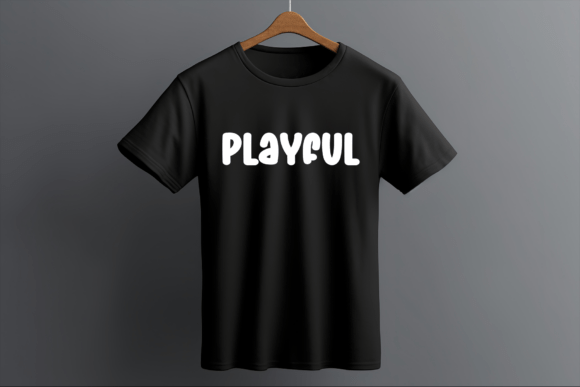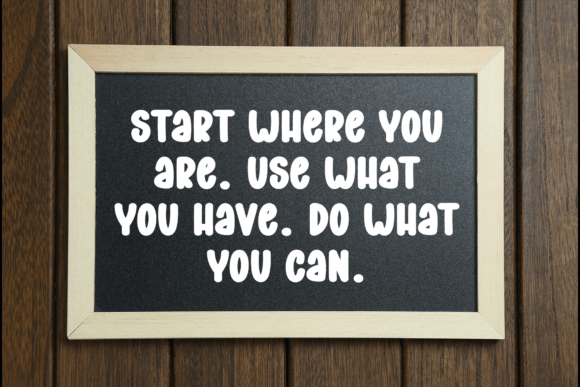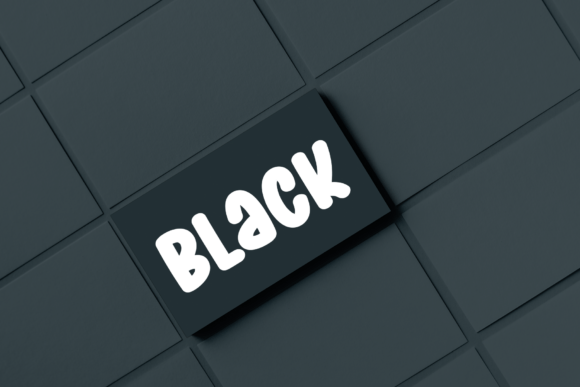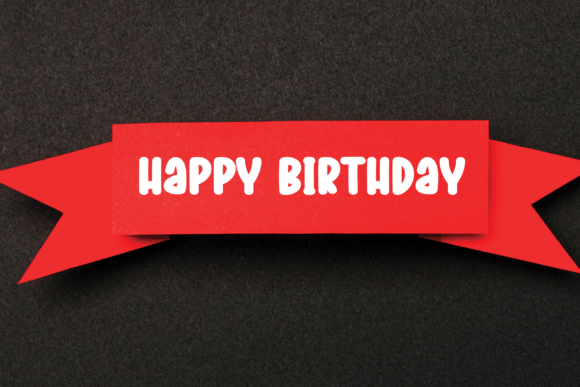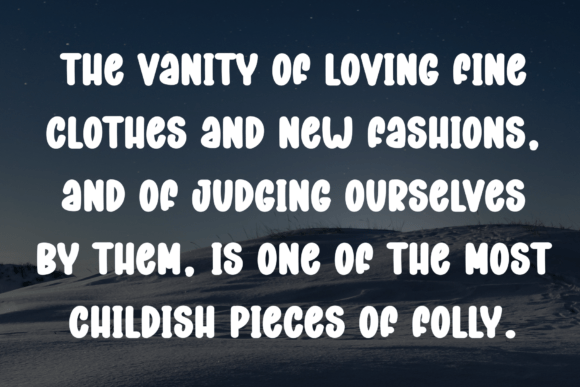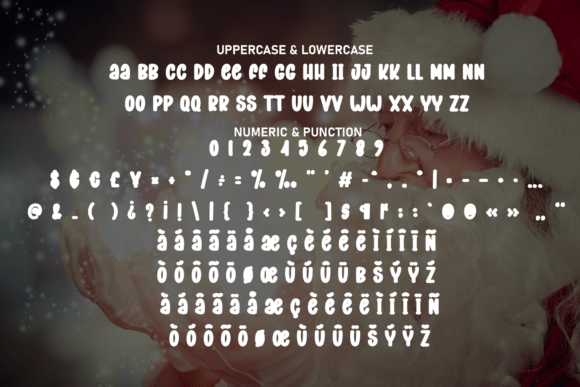
Introduction to Santa Spark Joy Font
Indulge in the whimsical charm of this amiable handwritten display font.
Doused in sweetness and dappled with friendliness, itโs perfect for encapsulating heartwarming emotions on wedding invitations or any other cherished keepsake Revel in its delightful versatility and let it add a sprinkle of playful touch to your unique designs.
Santa Spark Joy Font offers exceptional quality and versatility, making it a valuable addition to your design toolkit. Whether you’re creating for personal projects or commercial use, Santa Spark Joy Font delivers professional results.